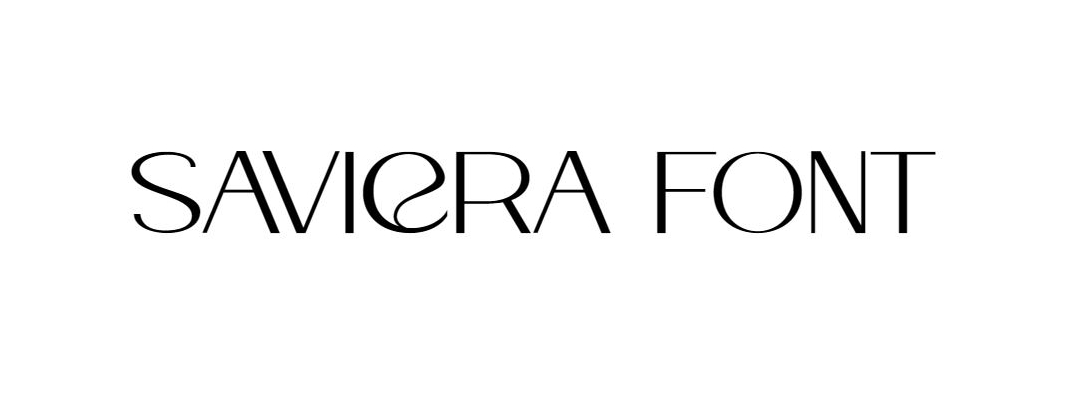
Saviera
Saviera is a sans serif font created by Yudi Pratama Chandra and released through RantautypeStudio (2024). Its clean letters skip the little "feet" (serifs) of traditional type, so it looks modern and reads well on screens. You can download it for free and test it with your own words in the preview above.
Saviera Font Details
- Designer: Yudi Pratama Chandra
- Publisher: RantautypeStudio
- Glyphs: 248
- OpenType features: Ligatures (including optional ones)
- Extra characters: 14 copy-and-paste alternates (Private Use Area)
What You Can Type With Saviera
Saviera covers the full alphabet in upper and lowercase, plus all ten numbers, so you can set names, dates and prices without switching fonts. Common punctuation such as &, !, ? and @ is included as well. It also has the accented letters you need for Spanish, French, German, Portuguese and Italian.
How to Use the Alternate Letters in Saviera
Where Saviera Works Best
Designers usually reach for fonts like Saviera when they're making websites, app screens and clean logos. Its lowercase letters are tall compared to the capitals, which keeps it readable at smaller sizes. It works for headings and body text alike. If the download has several weights, use a heavier one for titles and a lighter one for paragraphs.
Does Saviera support accented letters?
Yes. Saviera includes the accented letters needed for Spanish, French, German, Portuguese and Italian, so it works for more than just English.